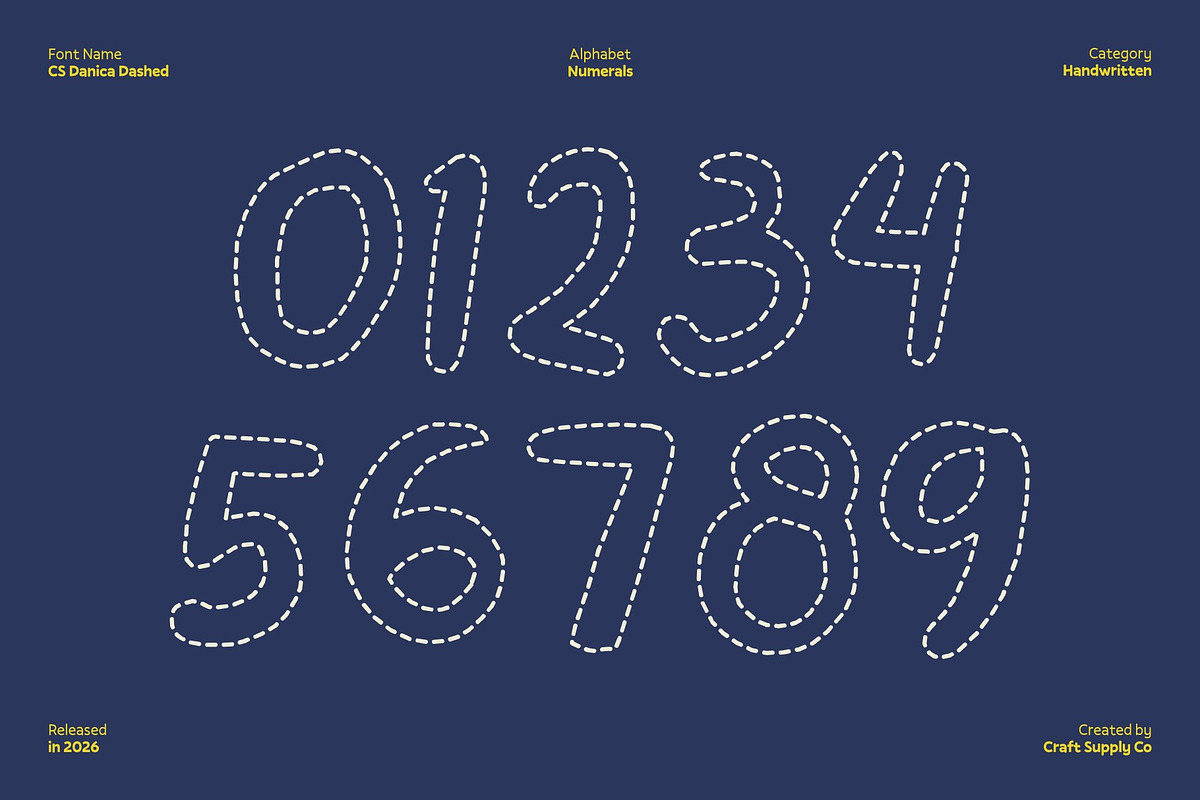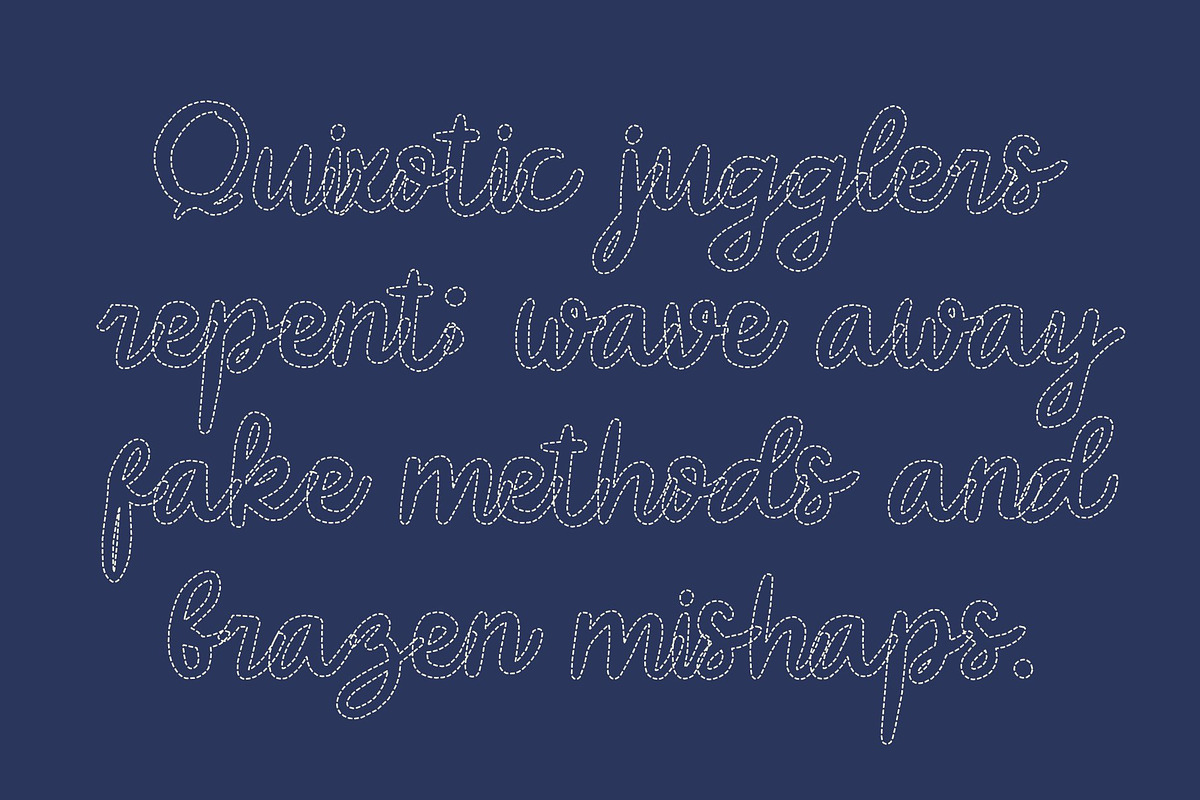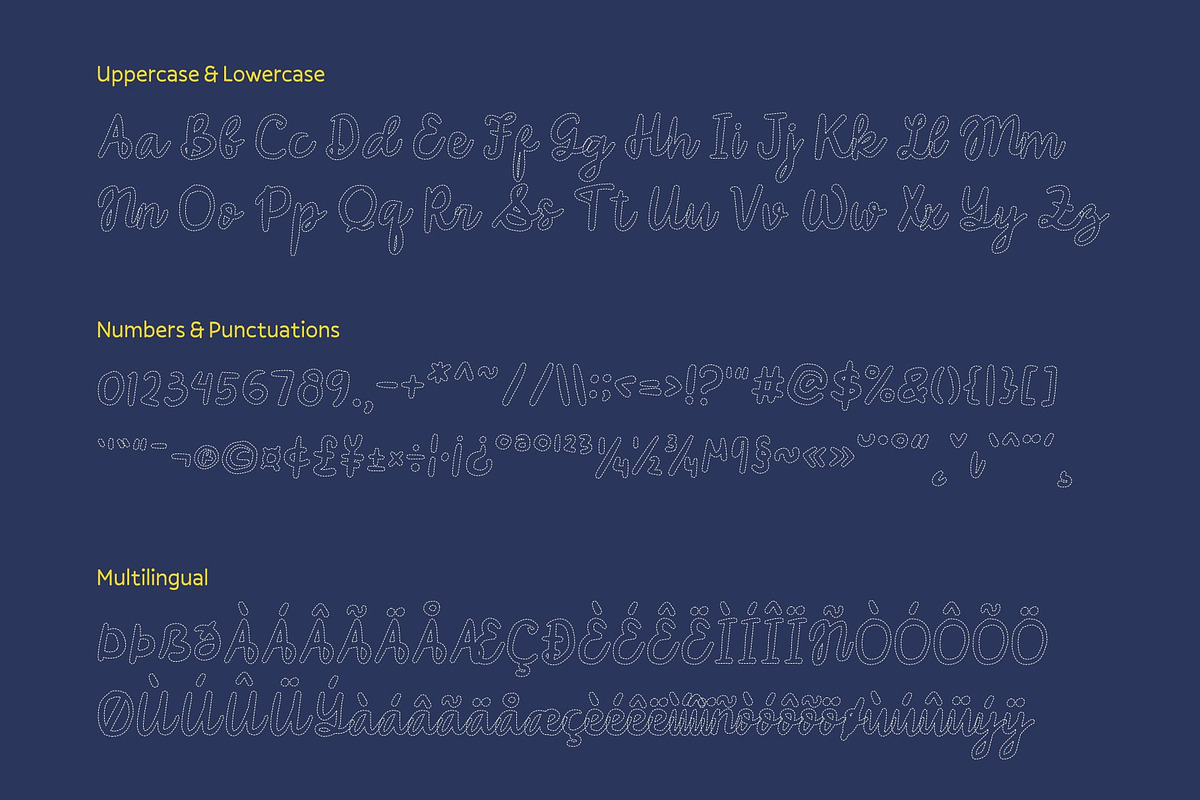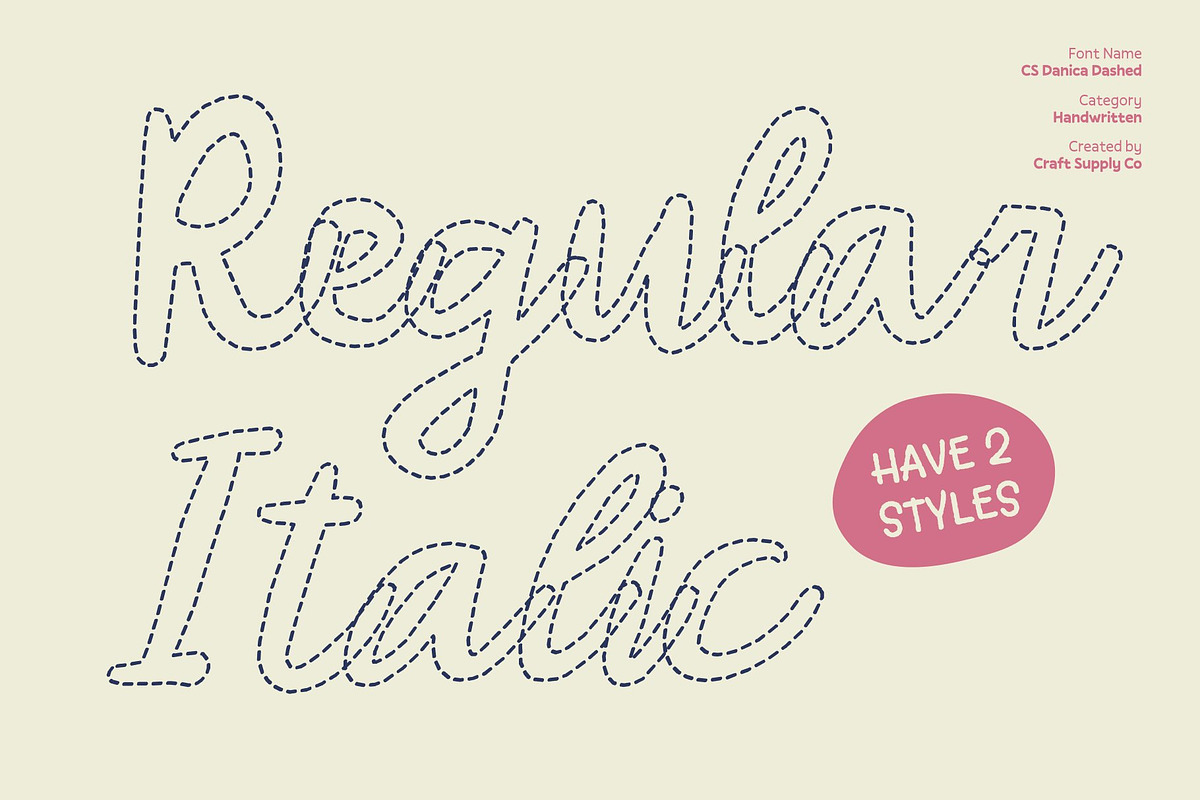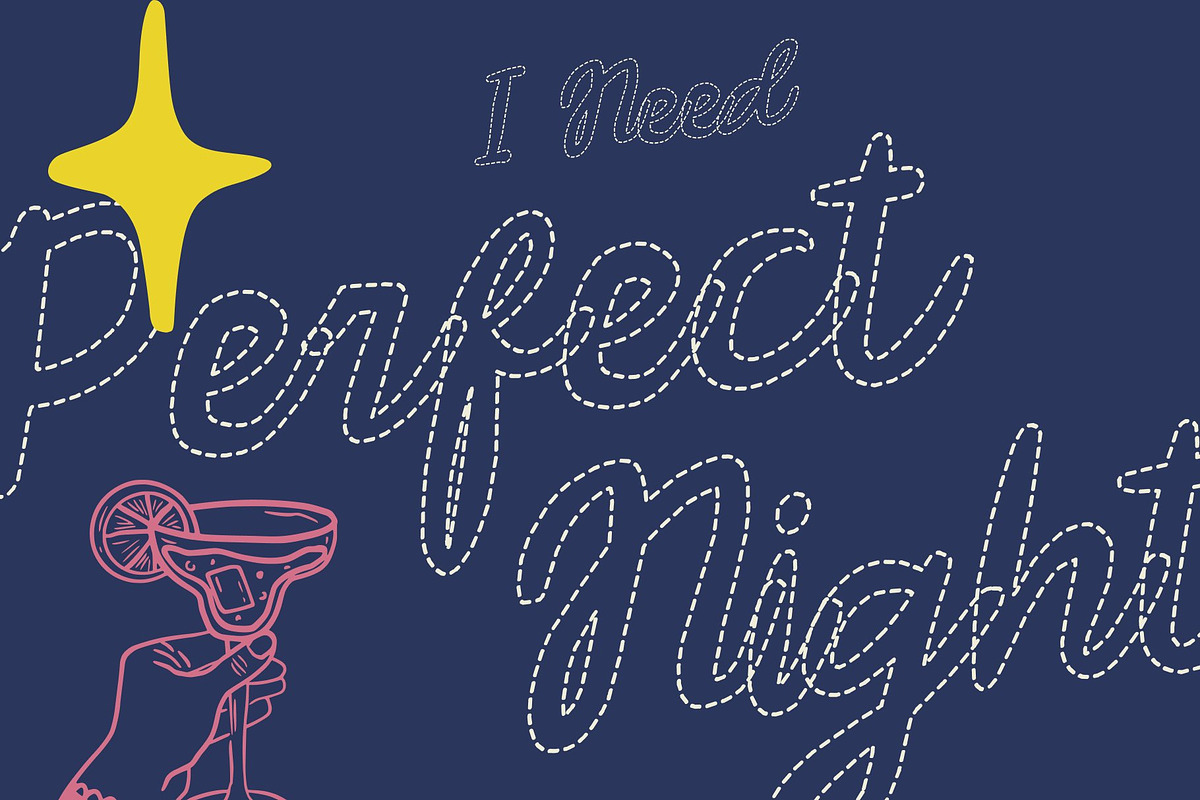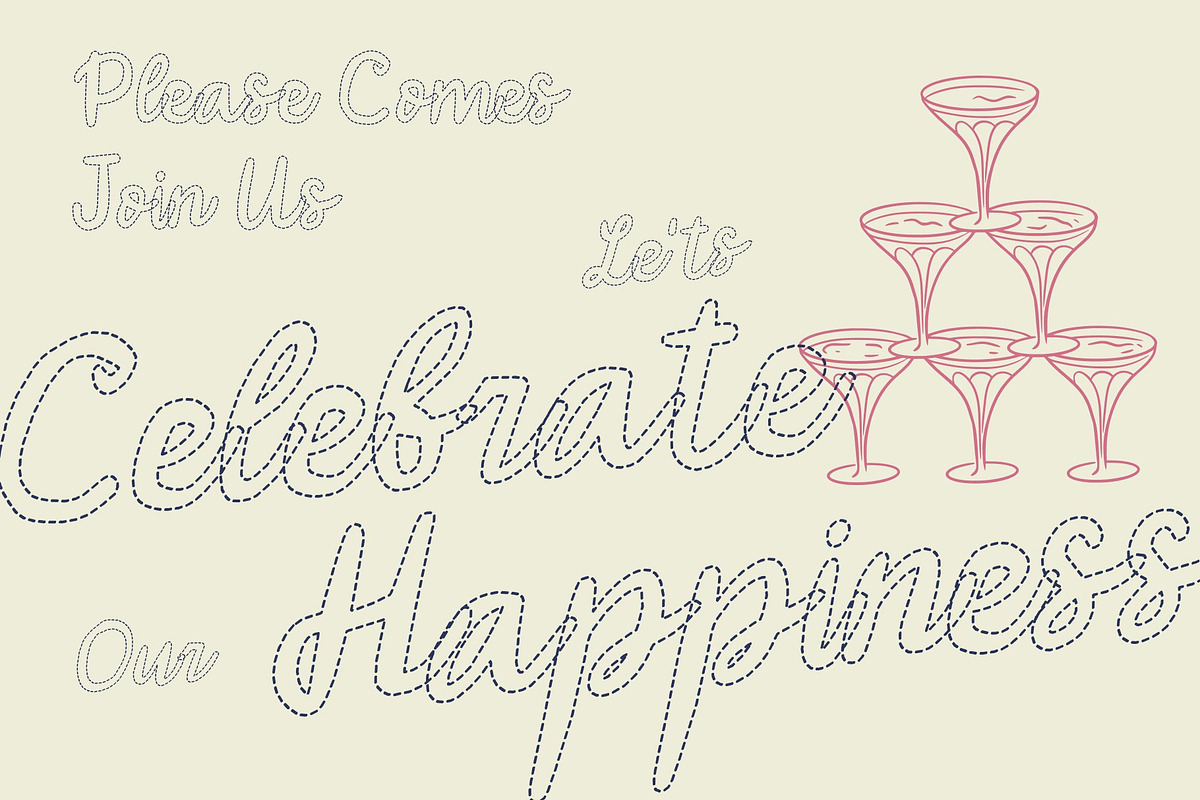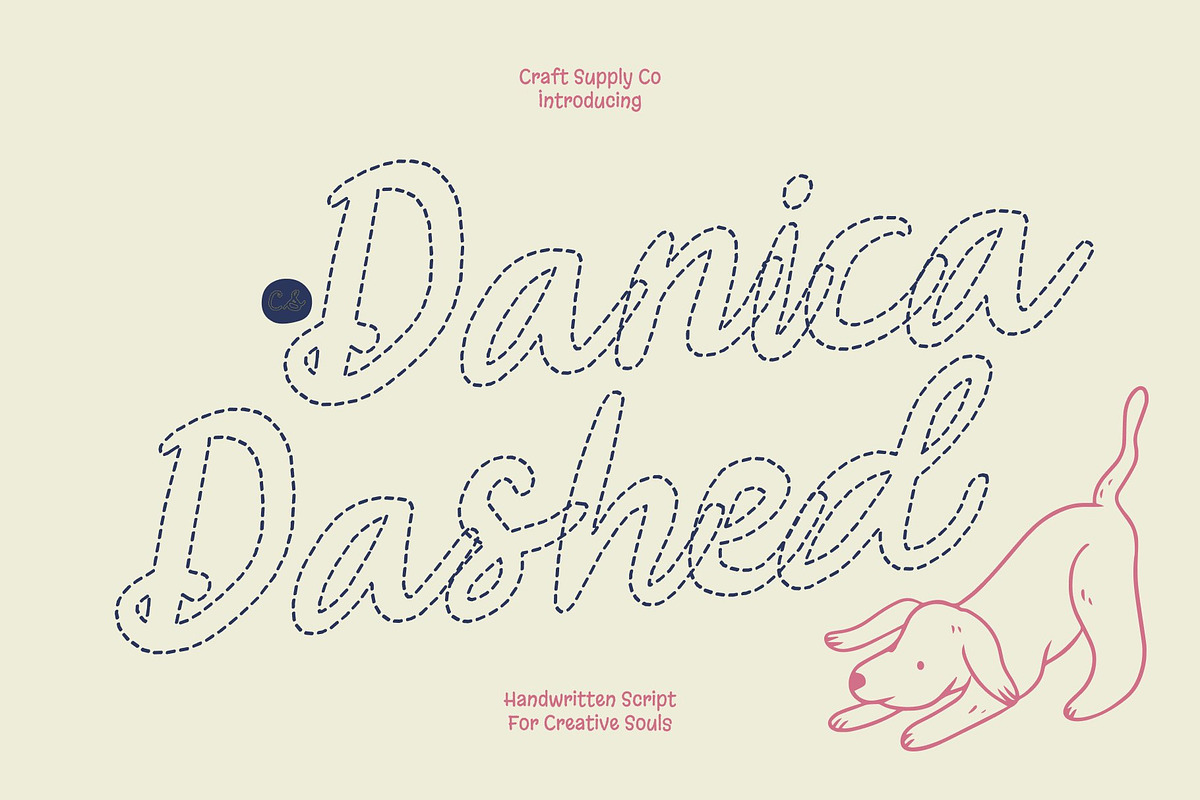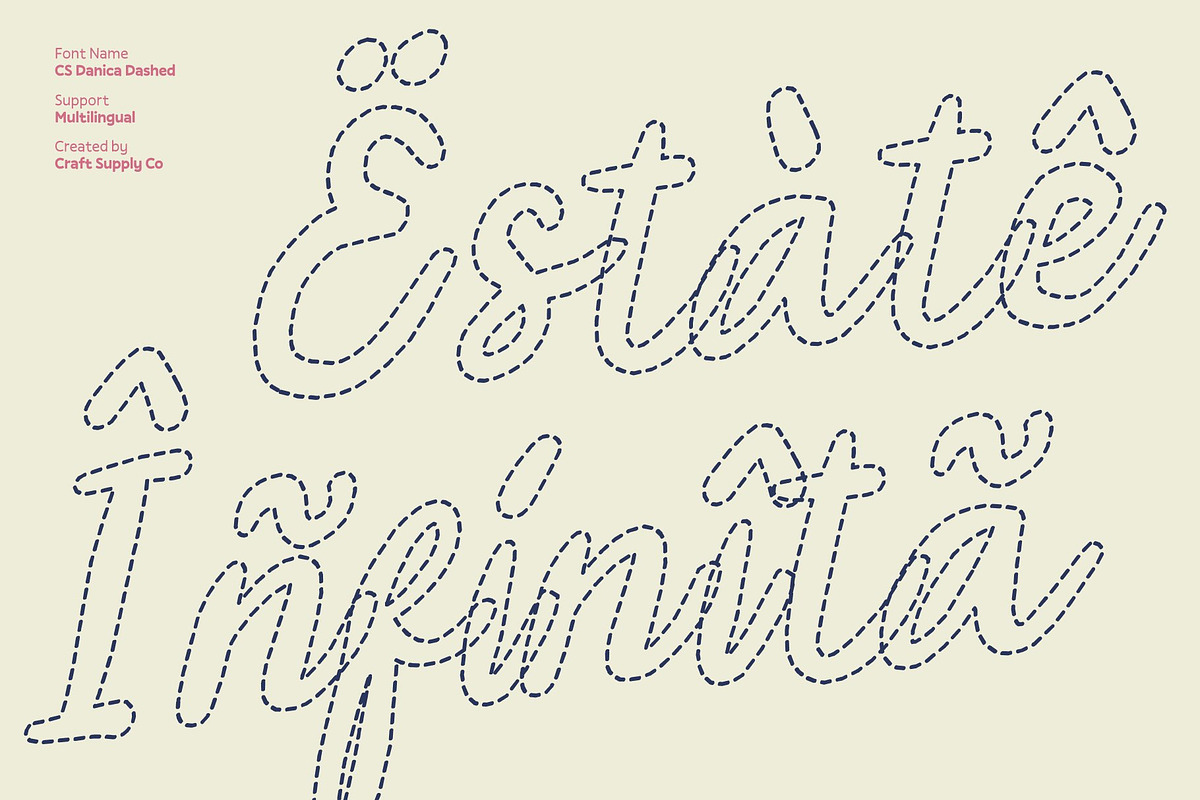
CS Danica Dashed
CS Danica Dashed – Delicate Expression with Handwritten Charm
Handwritten Script Font with Artistic Personality This is a delicate handwritten script font crafted to express creativity and individuality. Designed with graceful strokes and flowing connections, it captures the beauty of natural handwriting while maintaining a refined and stylish appearance. Subtle curves and expressive details give each letter an intentional, artistic presence.
Dashed Strokes with Creative Flourishes What makes this font truly distinctive is its dashed letter construction. Instead of solid, continuous lines, the strokes are formed from soft, broken segments that create a light and airy visual texture. This dashed effect enhances the handwritten illusion, as if the pen gently lifted along the page, adding movement and organic rhythm. The result is a script style that feels relaxed, imaginative, and visually engaging while still elegant and balanced.
Delicate, Warm, and Expressively Refined The combination of flowing script and segmented strokes creates a delicate yet playful personality. It conveys warmth and authenticity while introducing a subtle creative edge. The refined flourishes remain graceful and controlled, ensuring readability while adding charm and sophistication to every word.
Perfect for Branding, Invitations, and Fashion Graphics This is ideal for branding, wedding invitations, fashion graphics, packaging, editorial layouts, and lifestyle designs. Its dashed handwritten style adds personality and softness, making it especially suited for beauty brands, boutique products, and creative projects that aim to feel intimate, stylish, and thoughtfully crafted.